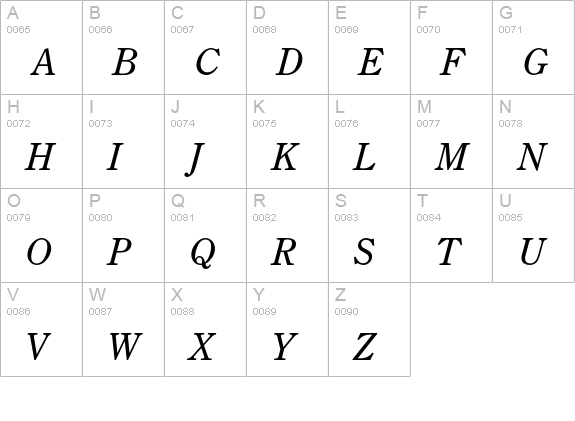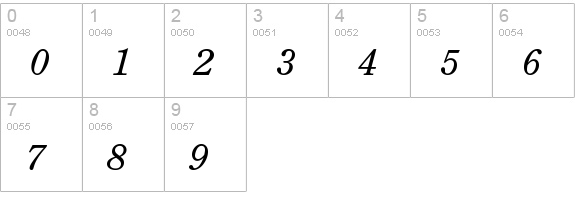
CenturyOldStyleEF-RegIta Font Details
The CenturyOldStyleEF-RegIta font is a classic and timeless typeface that exudes elegance and sophistication. Its refined letterforms and delicate serifs make it perfect for conveying a sense of tradition and heritage in your designs. This versatile font is ideal for a wide range of uses, from branding and editorial design to invitations and signage. The CenturyOldStyleEF-RegIta font is available for free download at FontsMarket.com, making it easily accessible to designers and creatives looking to add a touch of vintage charm to their projects. With its graceful curves and balanced proportions, this font is sure to elevate any design and give it a touch of old-world refinement. Download the CenturyOldStyleEF-RegIta font today and add a touch of timeless elegance to your work.